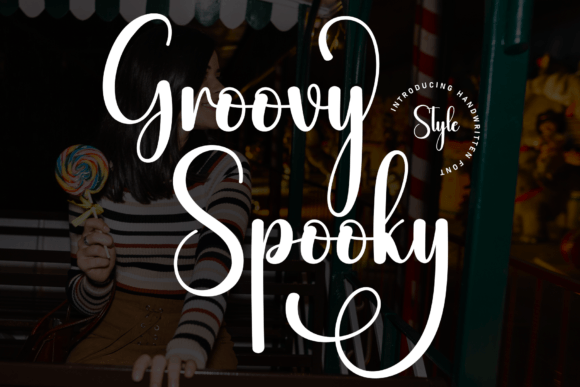
Adding a Dash of Whimsy to Your Designs
Have you ever found yourself brainstorming ideas for a project, and suddenly, a spark of creativity hits you? It’s that feeling of excitement and inspiration that drives us as designers to push the boundaries of our work. For me, it was the moment I stumbled upon the Groovy Spooky Font – a delightful, handwritten display font that screams fun and friendliness.
This charming font is perfect for adding a touch of sweetness to wedding invitations, greeting cards, or any design that needs a dash of whimsy. Its cute and playful nature makes it an ideal choice for designers looking to create memorable and engaging visual experiences. With Groovy Spooky Font, you can infuse your designs with a sense of warmth and personality that will leave a lasting impression on your audience.
Groovy Spooky Font Key Features
- Font Family: Groovy Spooky Font offers a unique and spooky twist on traditional fonts, perfect for Halloween and other dark-themed designs.
- Unique Characteristics: Groovy Spooky Font features a distinctive, hand-drawn style with intricate details and textures, adding a touch of eeriness to any design.
Groovy Spooky Font Review
Overall, I think “Groovy Spooky Font” is a decent font choice for those looking to add a touch of whimsy to their designs.
- Unique character set that’s perfect for creating a spooky atmosphere
- Good for use in headings and titles, adding a sense of drama and flair
- Supports a range of languages, making it a great option for multilingual designs
- Can be a bit too “out there” for some designs, may clash with other elements
- Not ideal for body text, as it can be difficult to read in smaller sizes
- May not be suitable for formal or professional designs, as it’s quite playful and quirky
While “Groovy Spooky Font” is not without its limitations, it’s a great option for designers looking to add some personality to their work. With its unique character set and dramatic flair, it’s perfect for creating a spooky or whimsical atmosphere. Just be mindful of its limitations and use it sparingly to avoid overwhelming your design.
Use Groovy Spooky Font for titles, headings, and other text elements that require a spooky or mysterious tone.
Combine with other spooky elements, such as haunted house silhouettes or creepy background textures, to create a cohesive design.
Experiment with different font sizes and styles to achieve the desired effect.